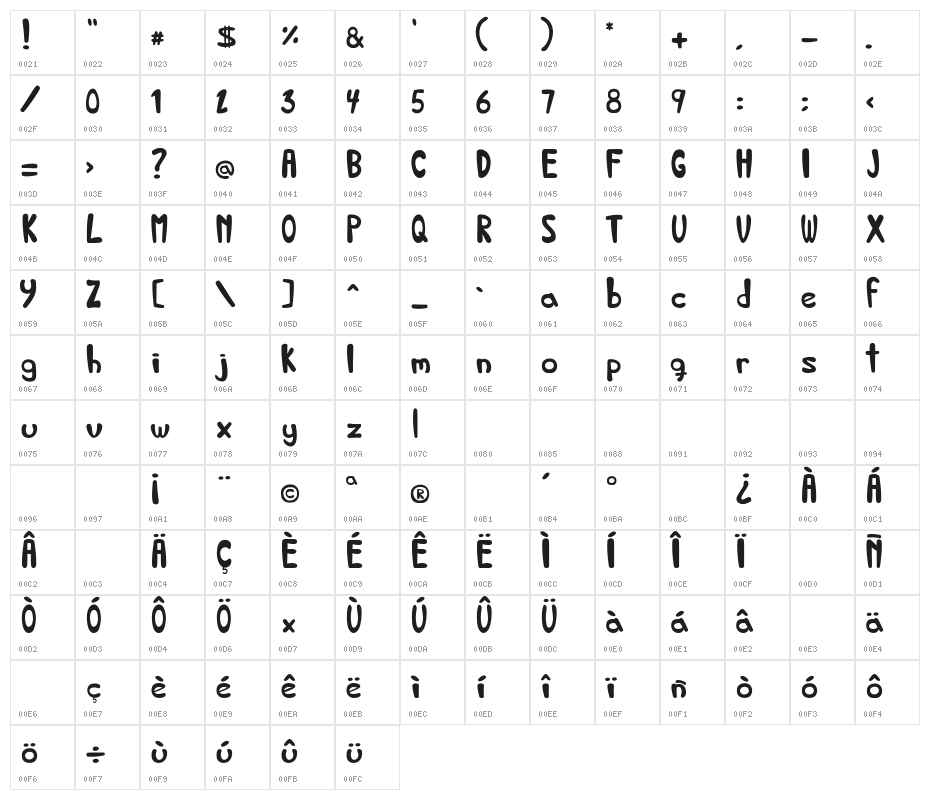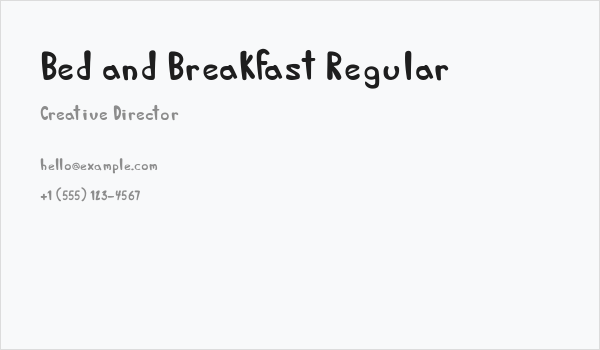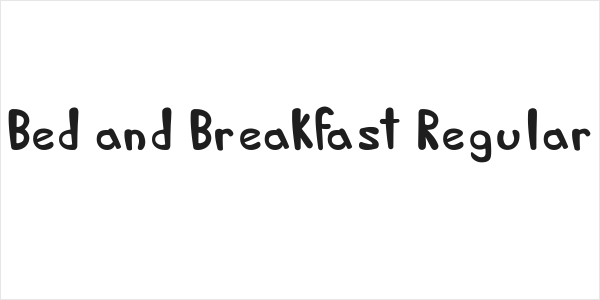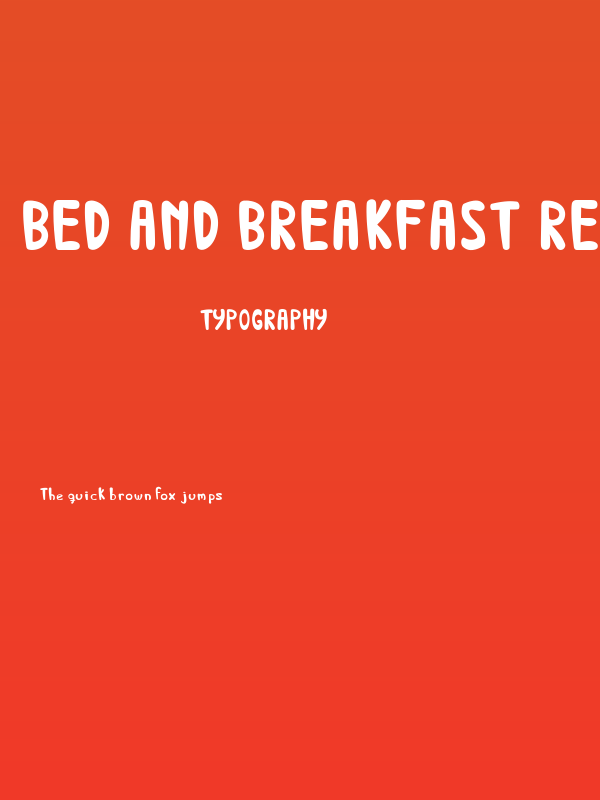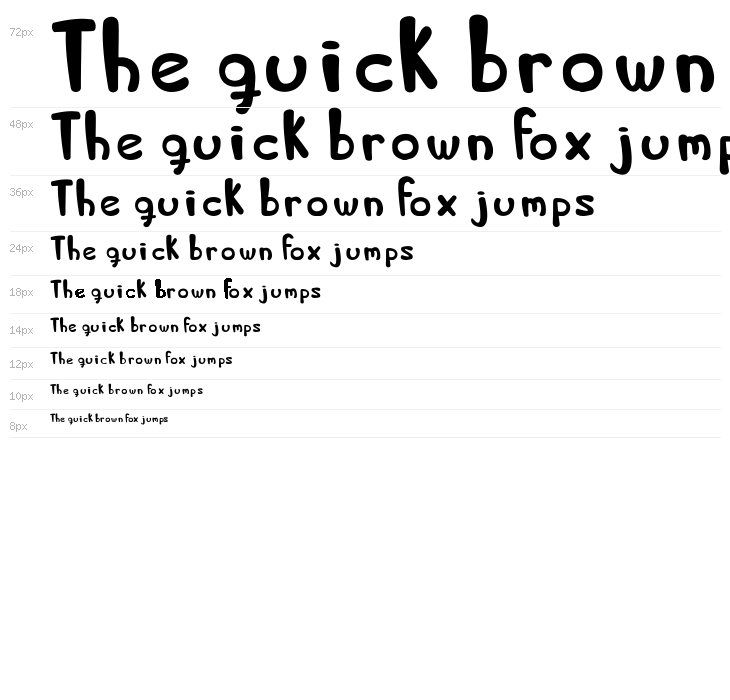
Bed and Breakfast Regular Font
Bed and Breakfast Regular Description
This playful and whimsical font features bold, rounded characters with a hand-drawn aesthetic. The letters have a consistent thickness, giving them a uniform appearance that is both approachable and friendly. The uppercase and lowercase letters maintain a cohesive style, with slight variations that add to the charm. Numbers and special characters are designed to match the overall playful theme, making this font ideal for projects that require a touch of fun and creativity. The smooth curves and lack of sharp edges contribute to its inviting look, making it suitable for a variety of informal applications.